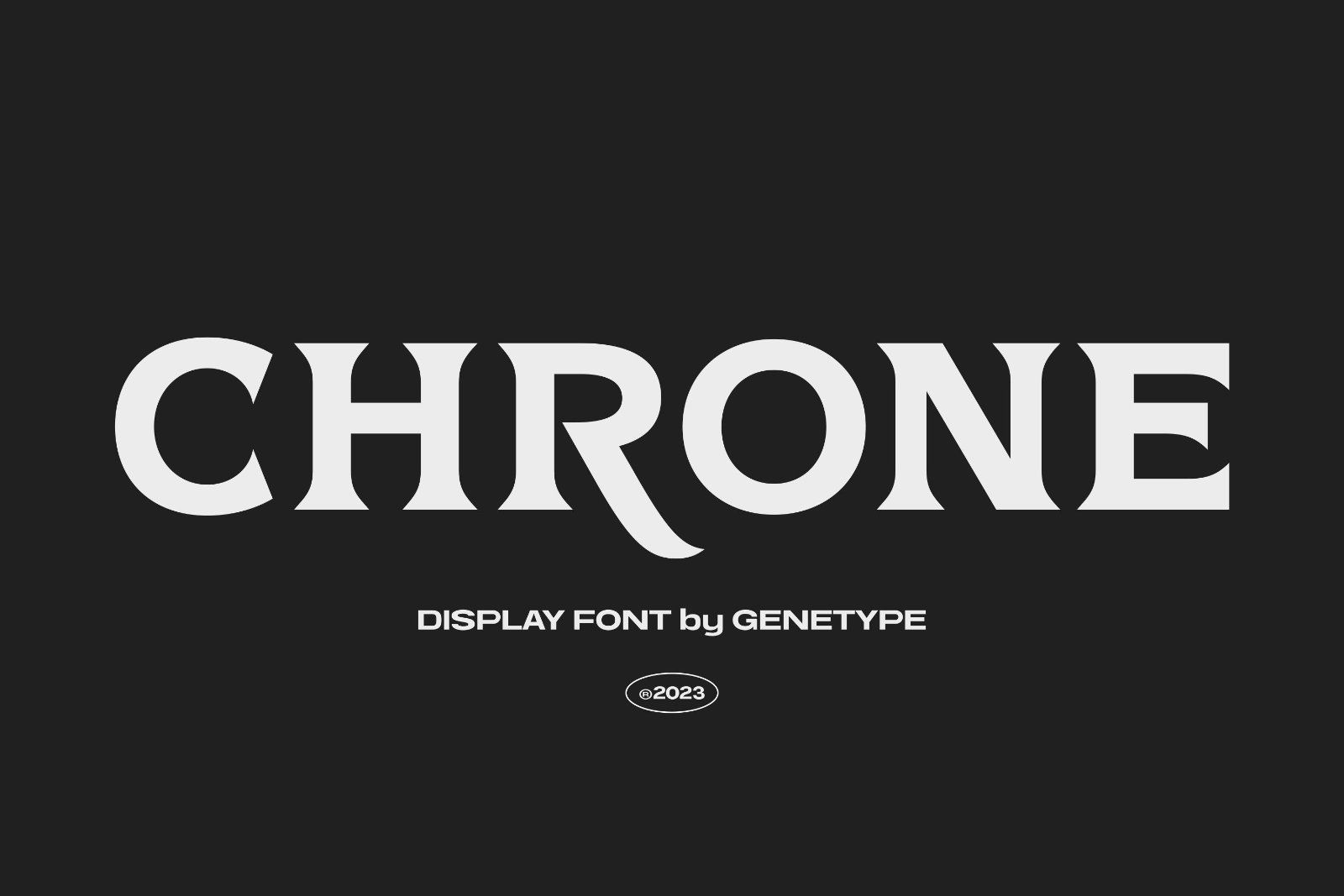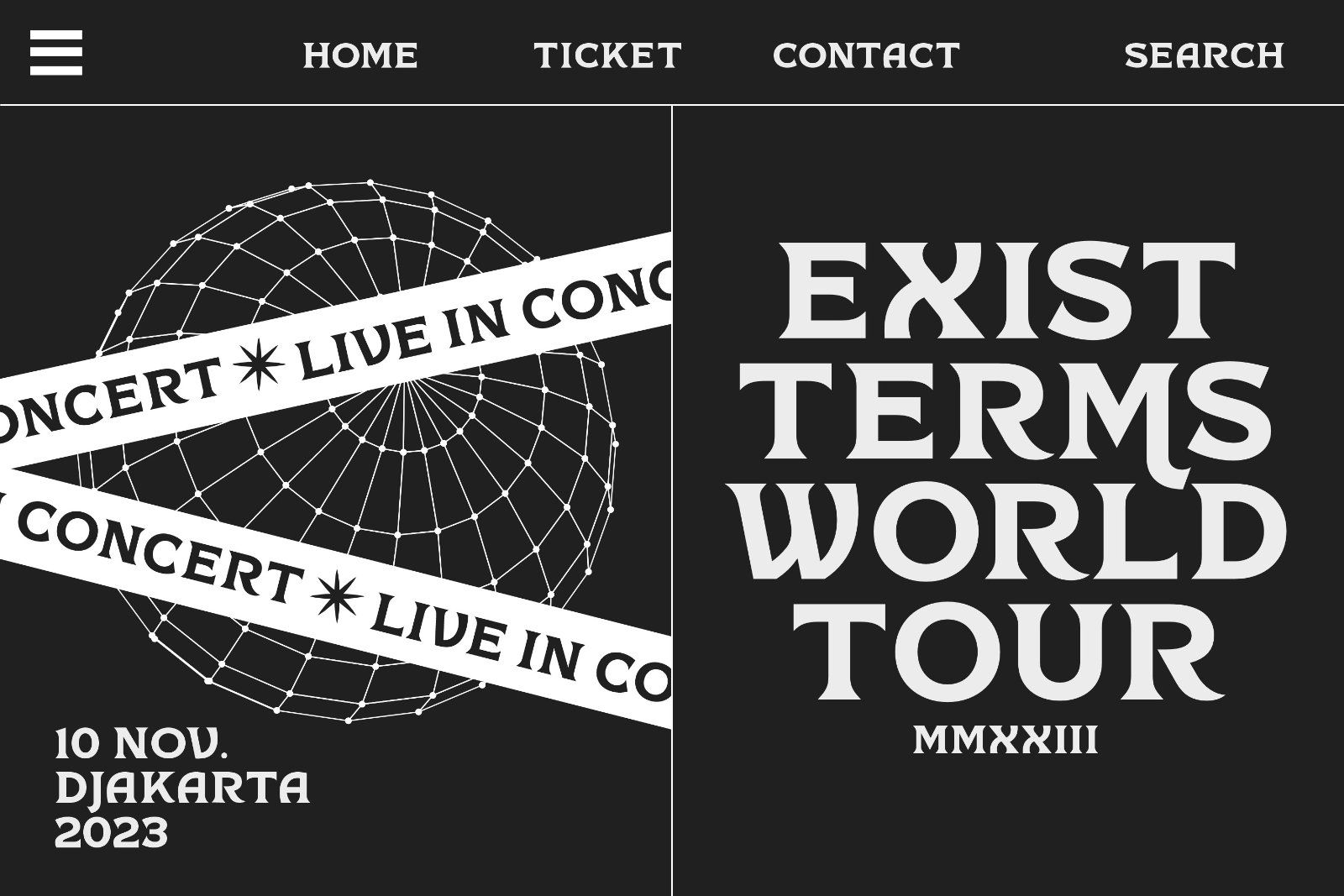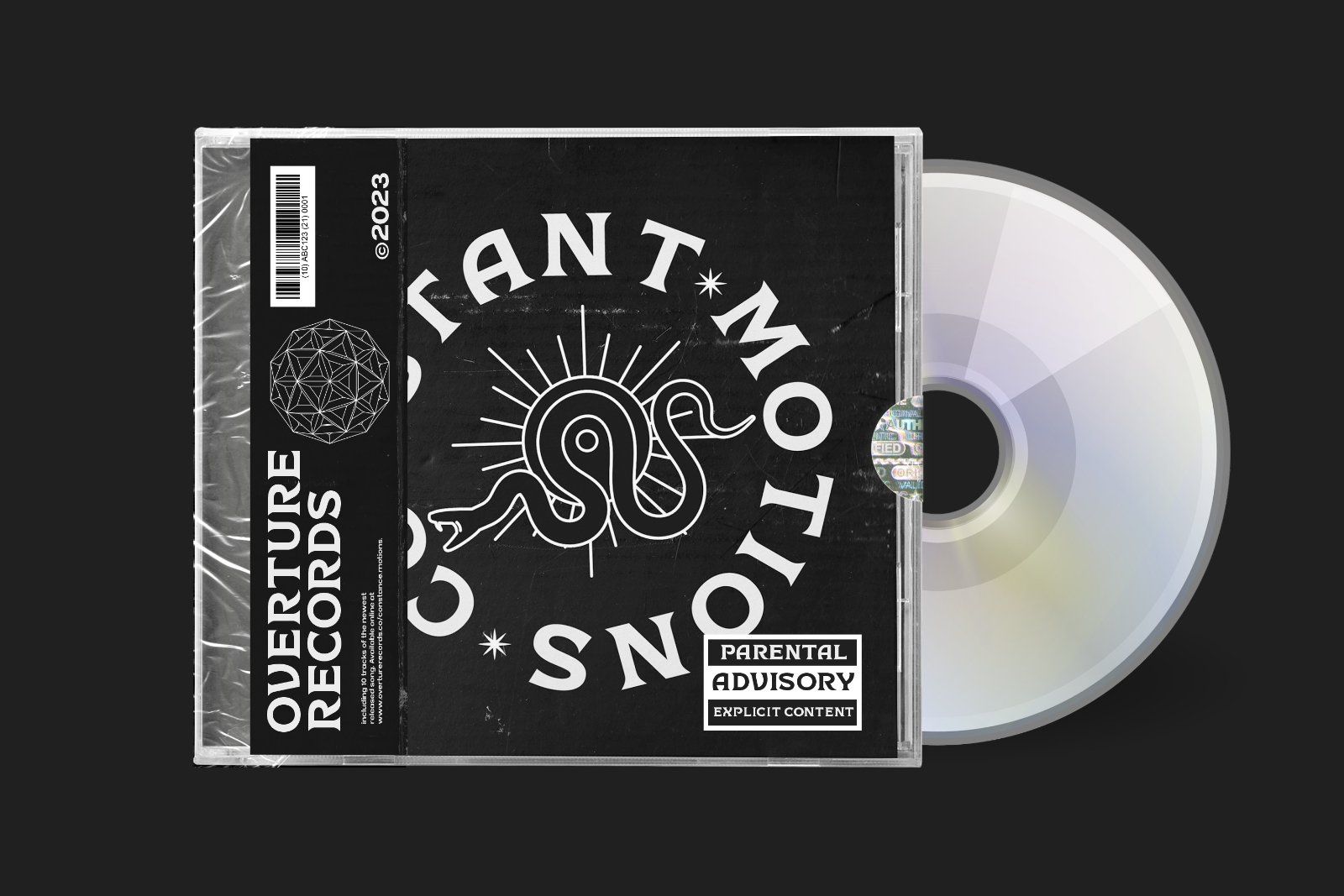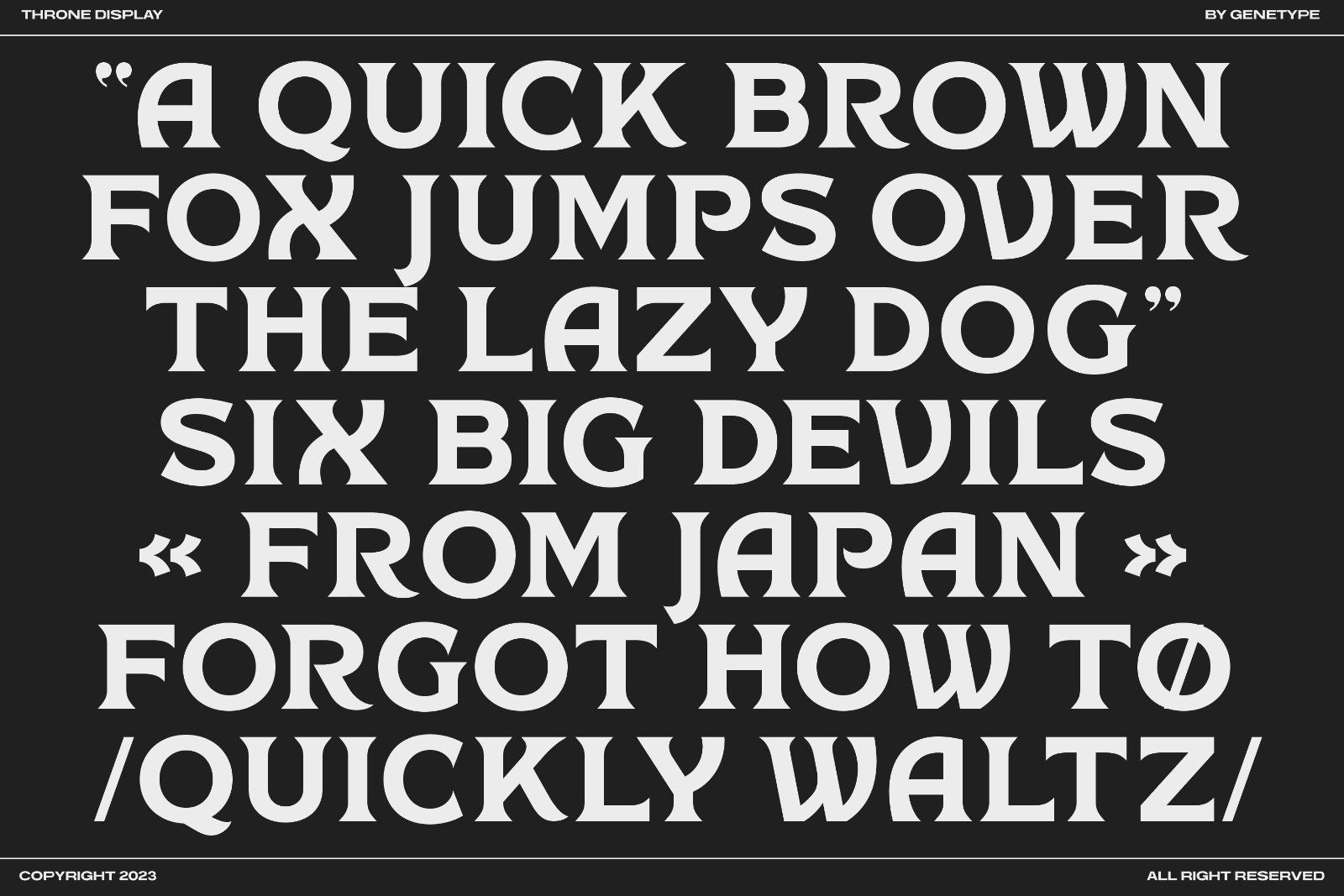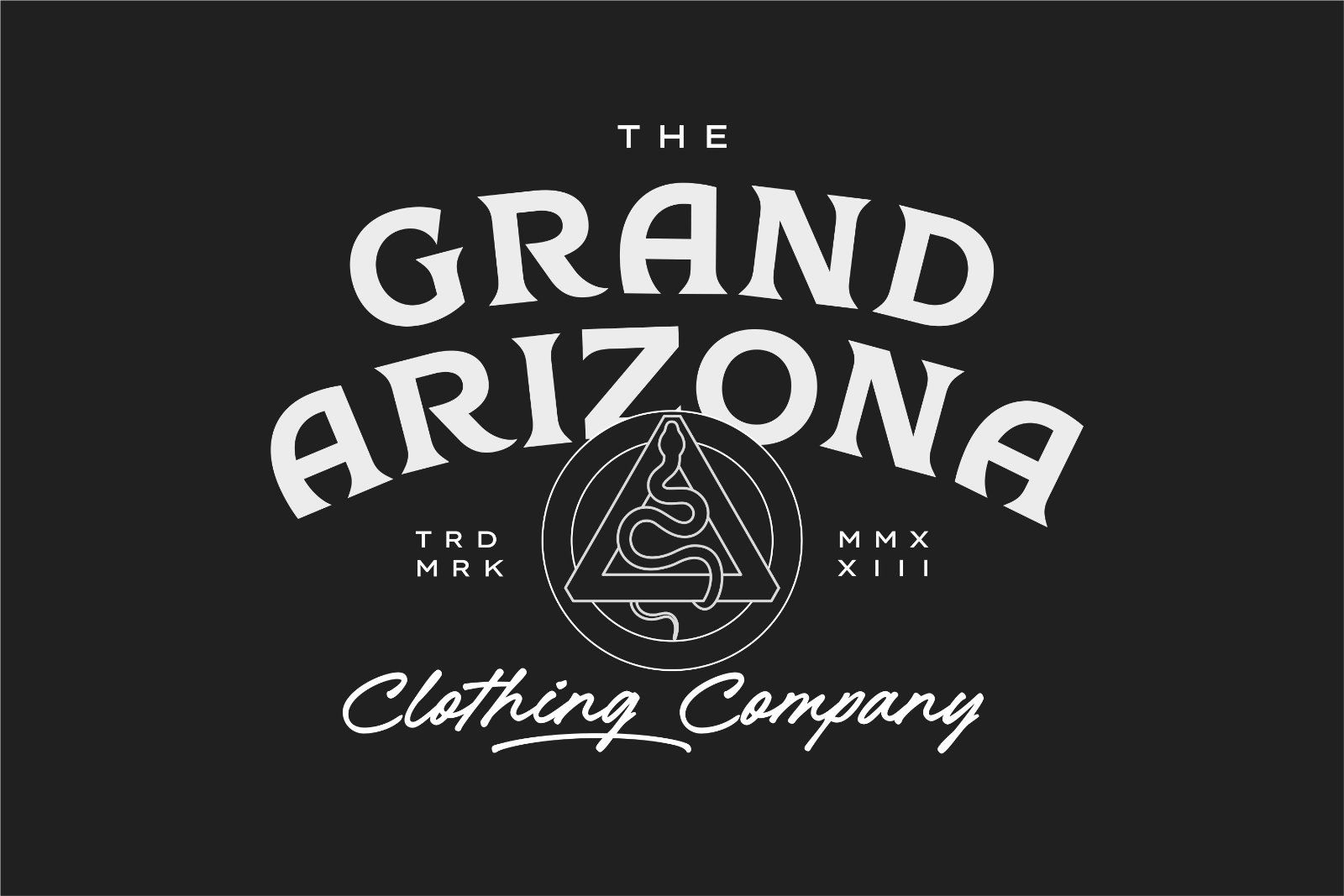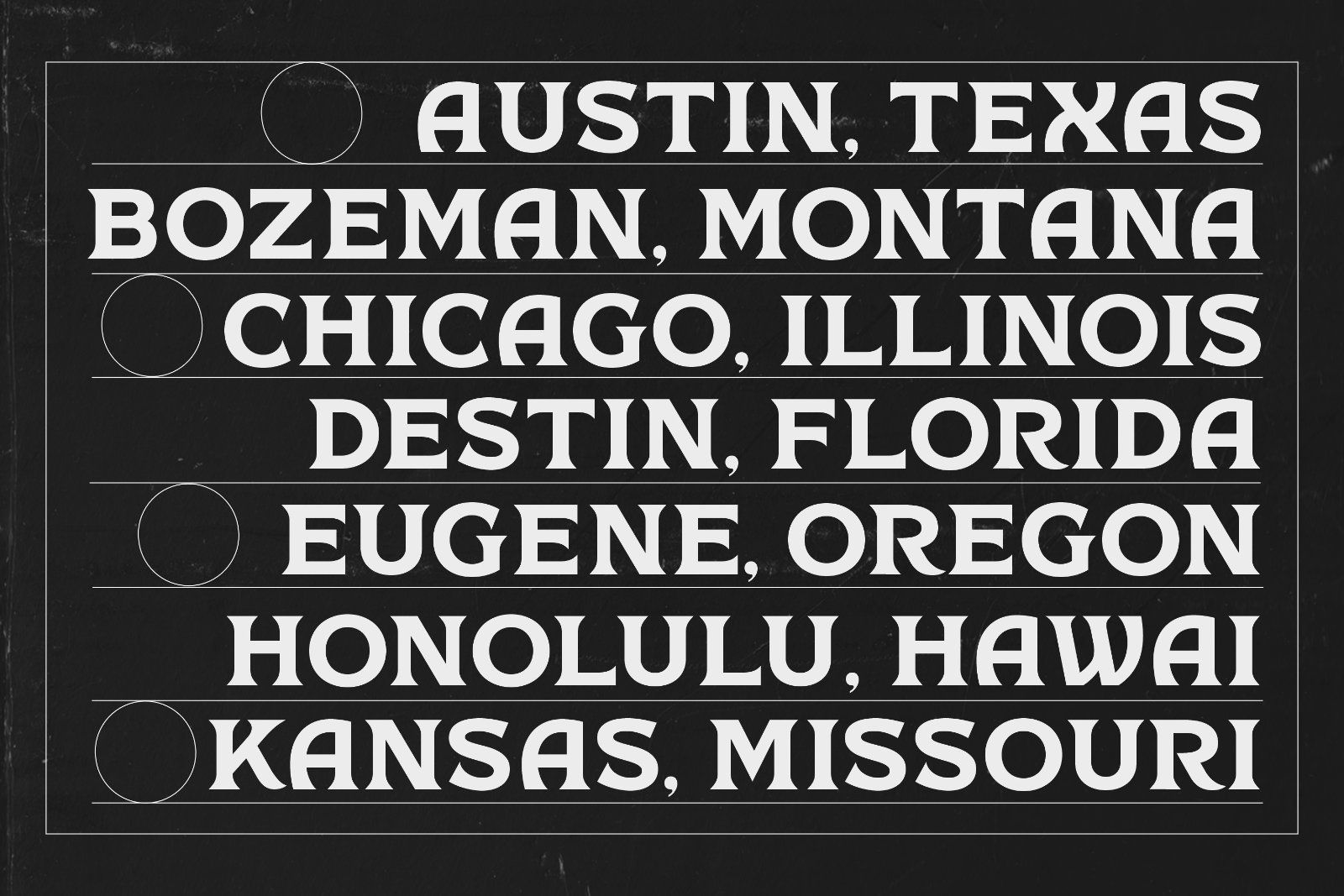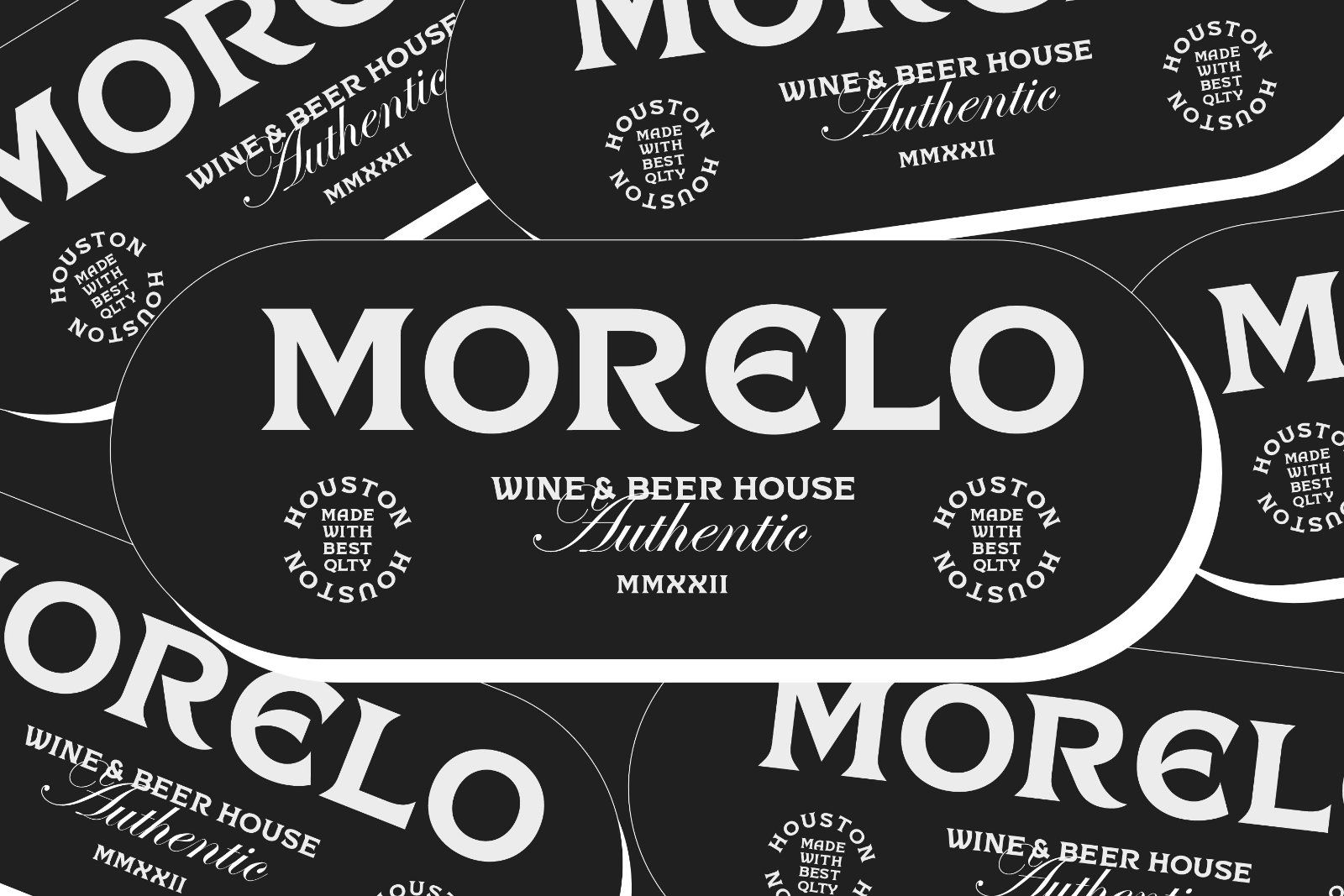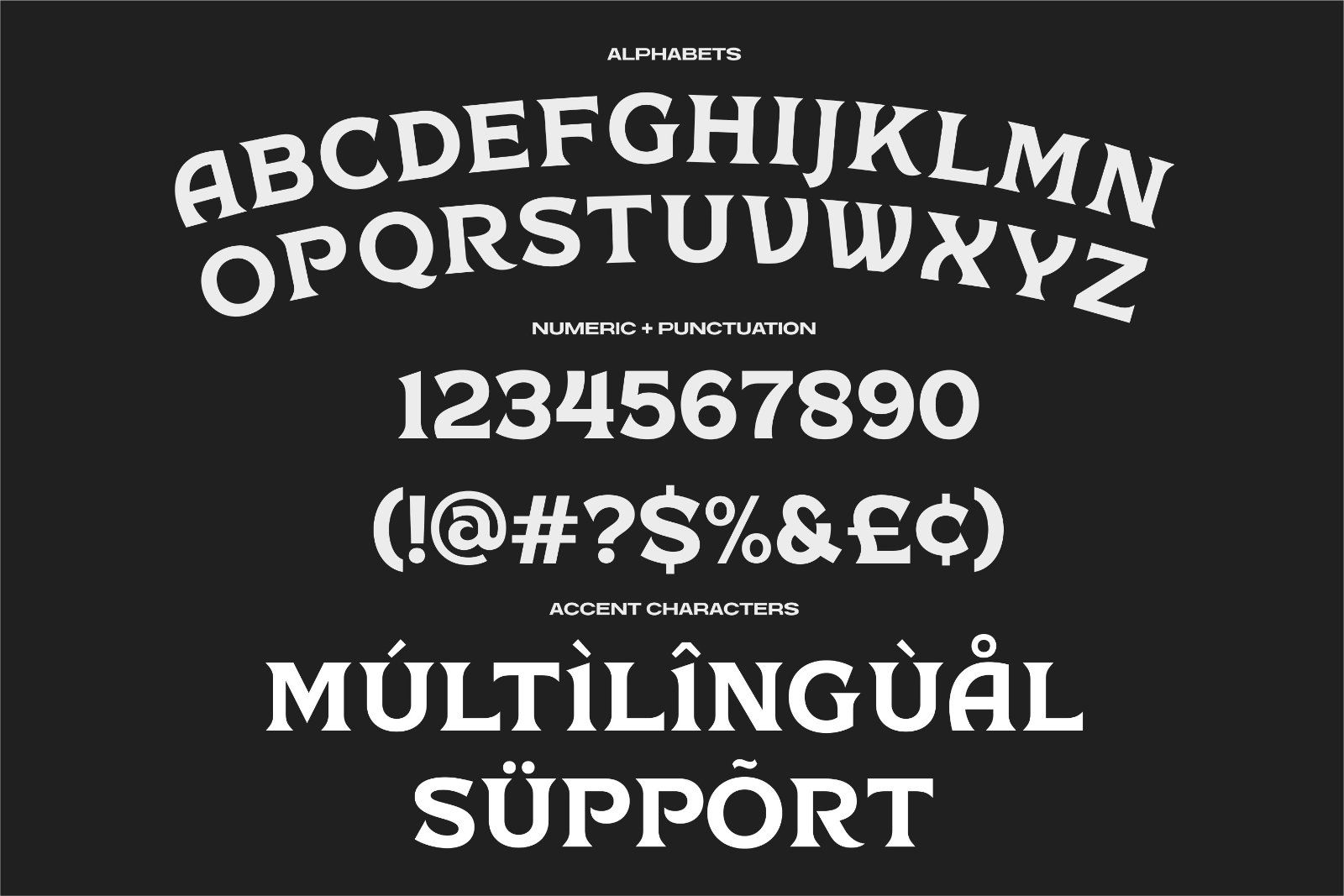
Introducing Chrone Serif Typeface: Unleash Masculine Elegance
Experience the epitome of masculine sophistication with Chrone Serif – a font designed to embody strength and refinement. From commanding headlines to timeless logos, its bold serifs exude confidence. Elevate your designs with a touch of masculine charm – explore Chrone Serif and make a bold statement today.